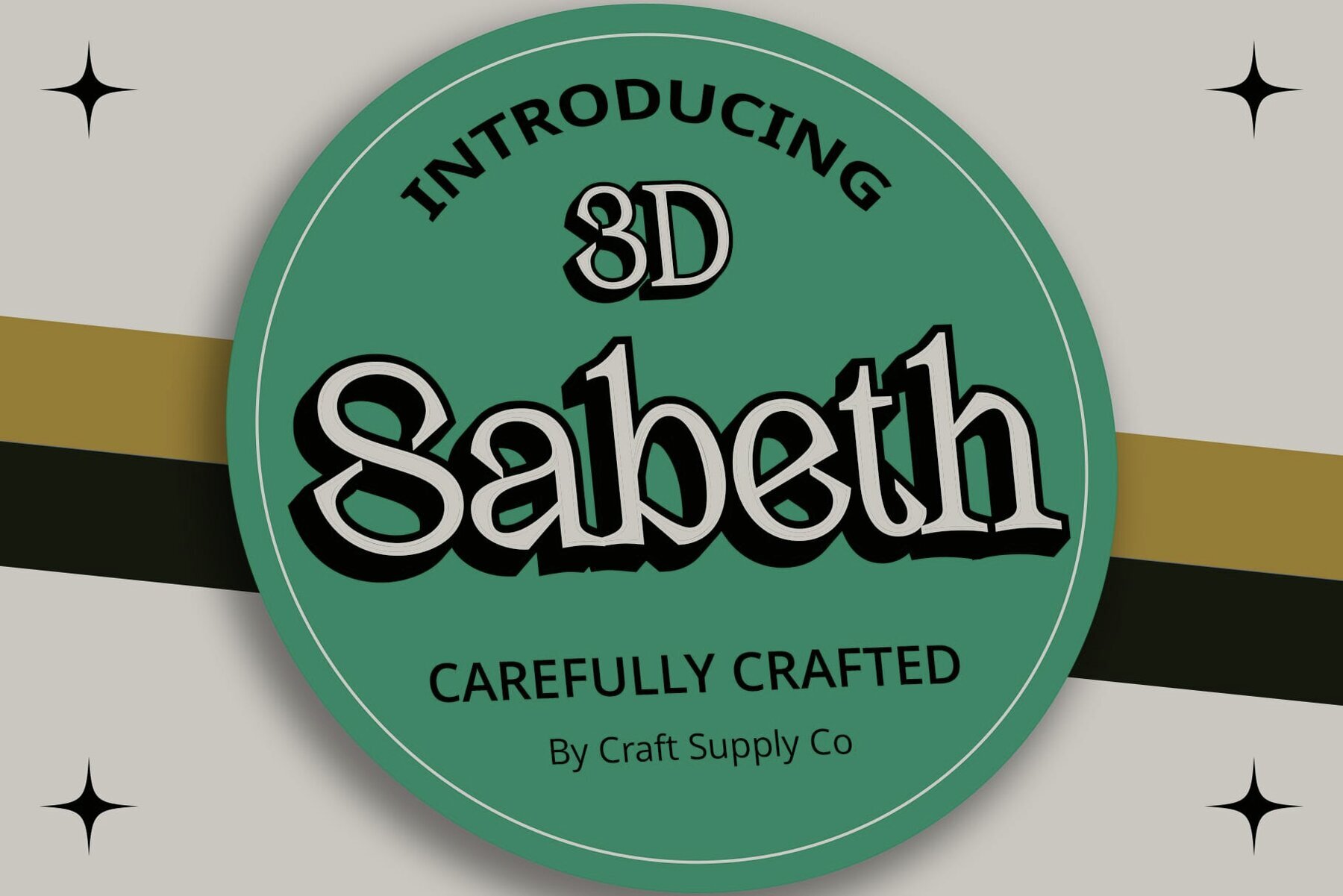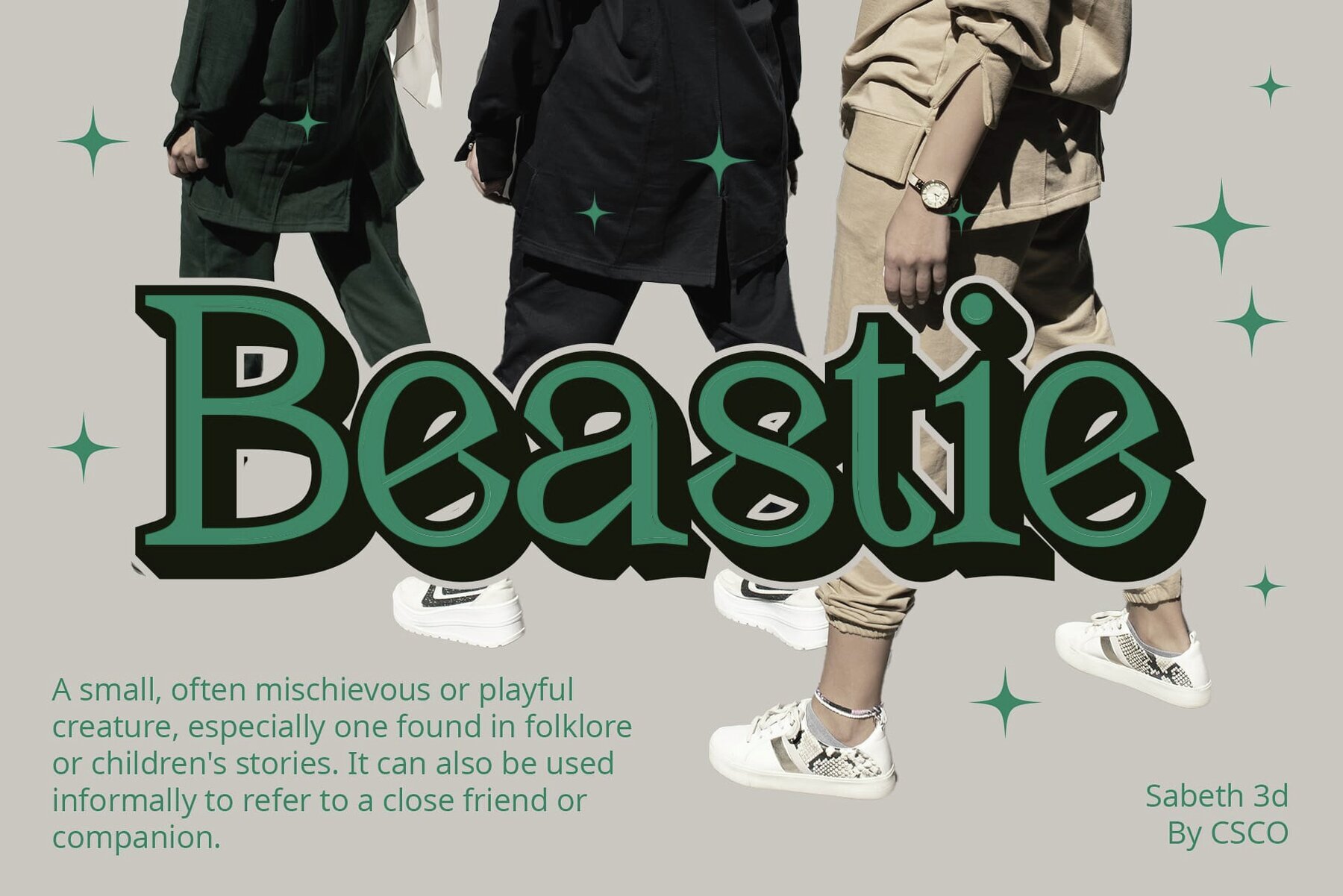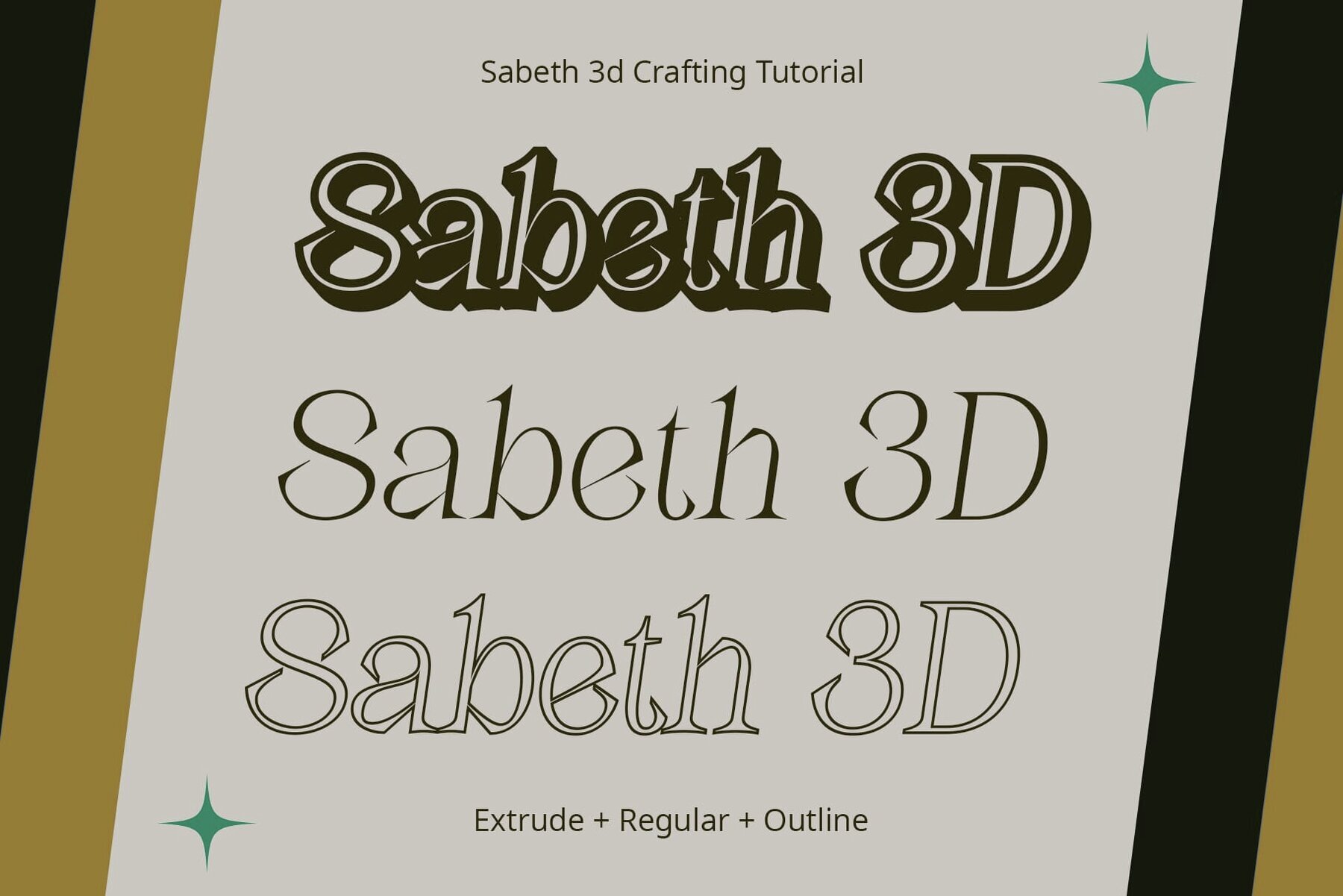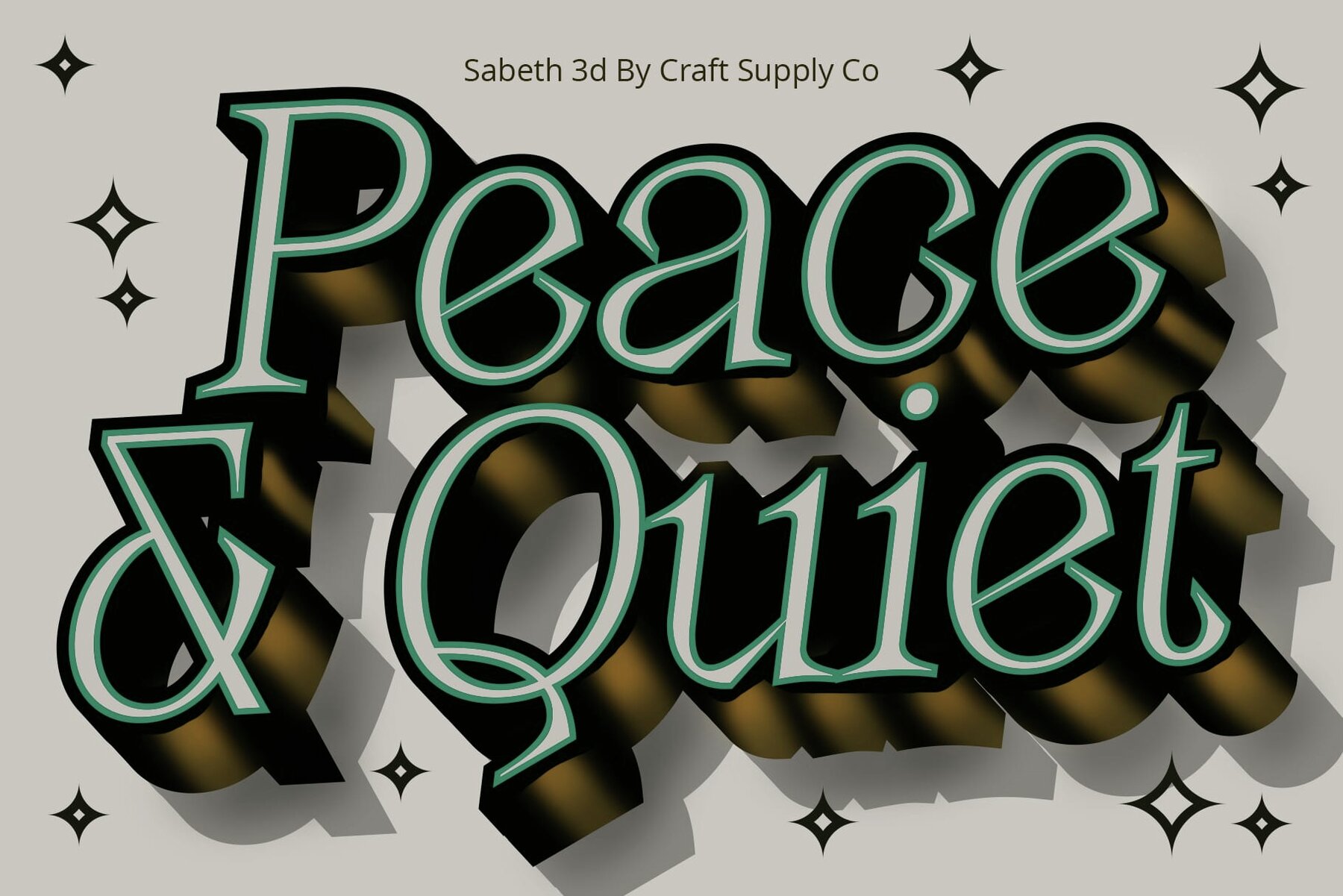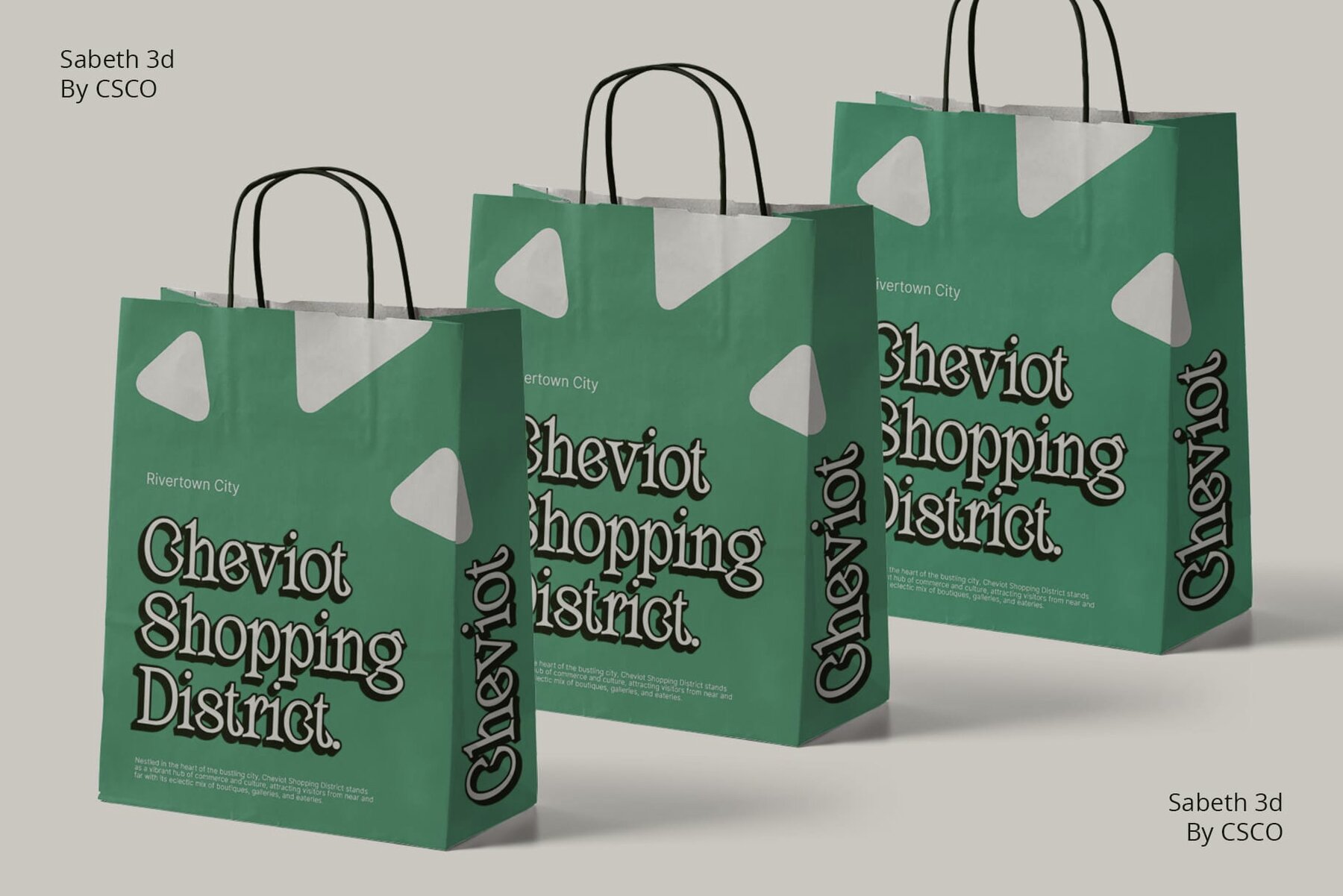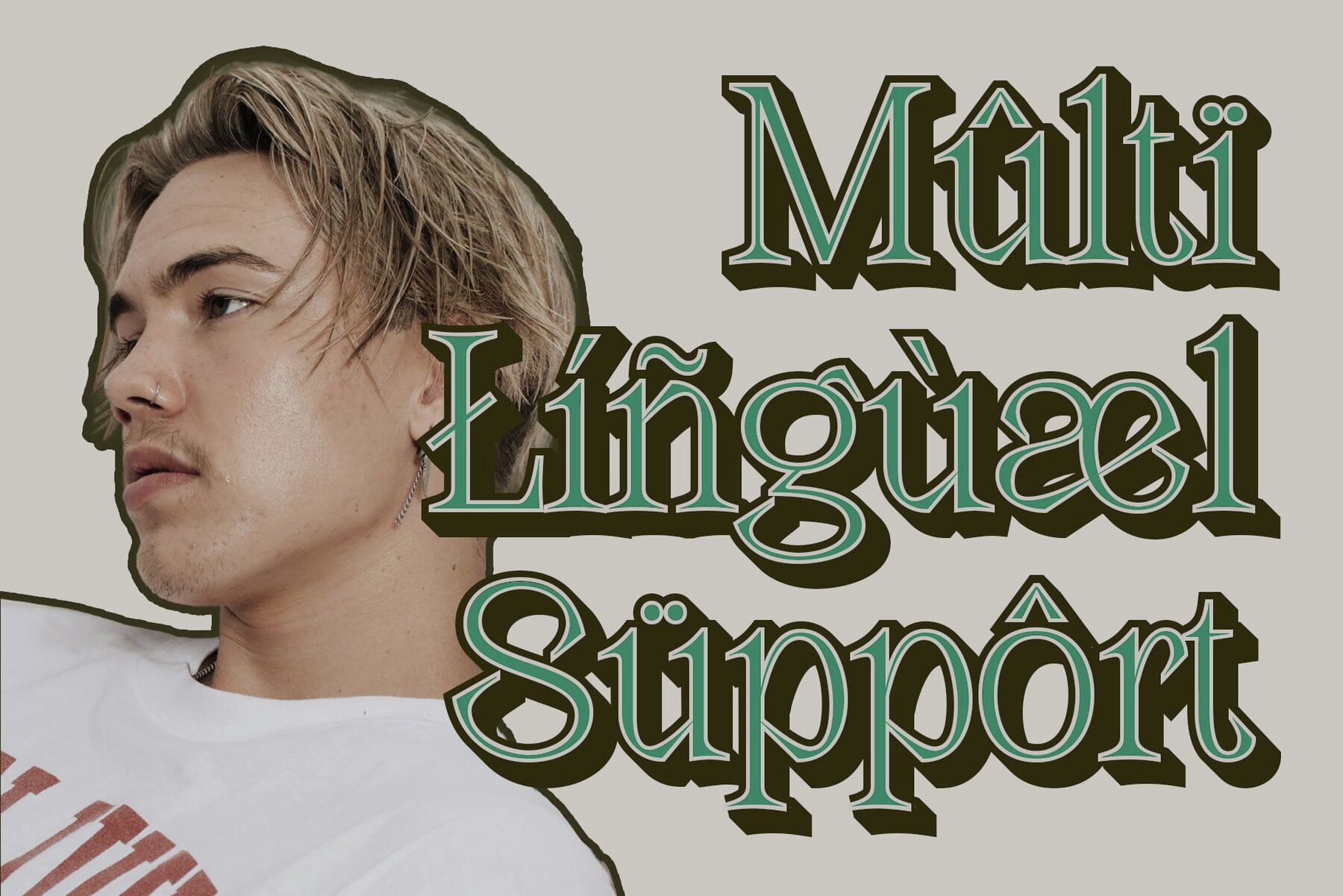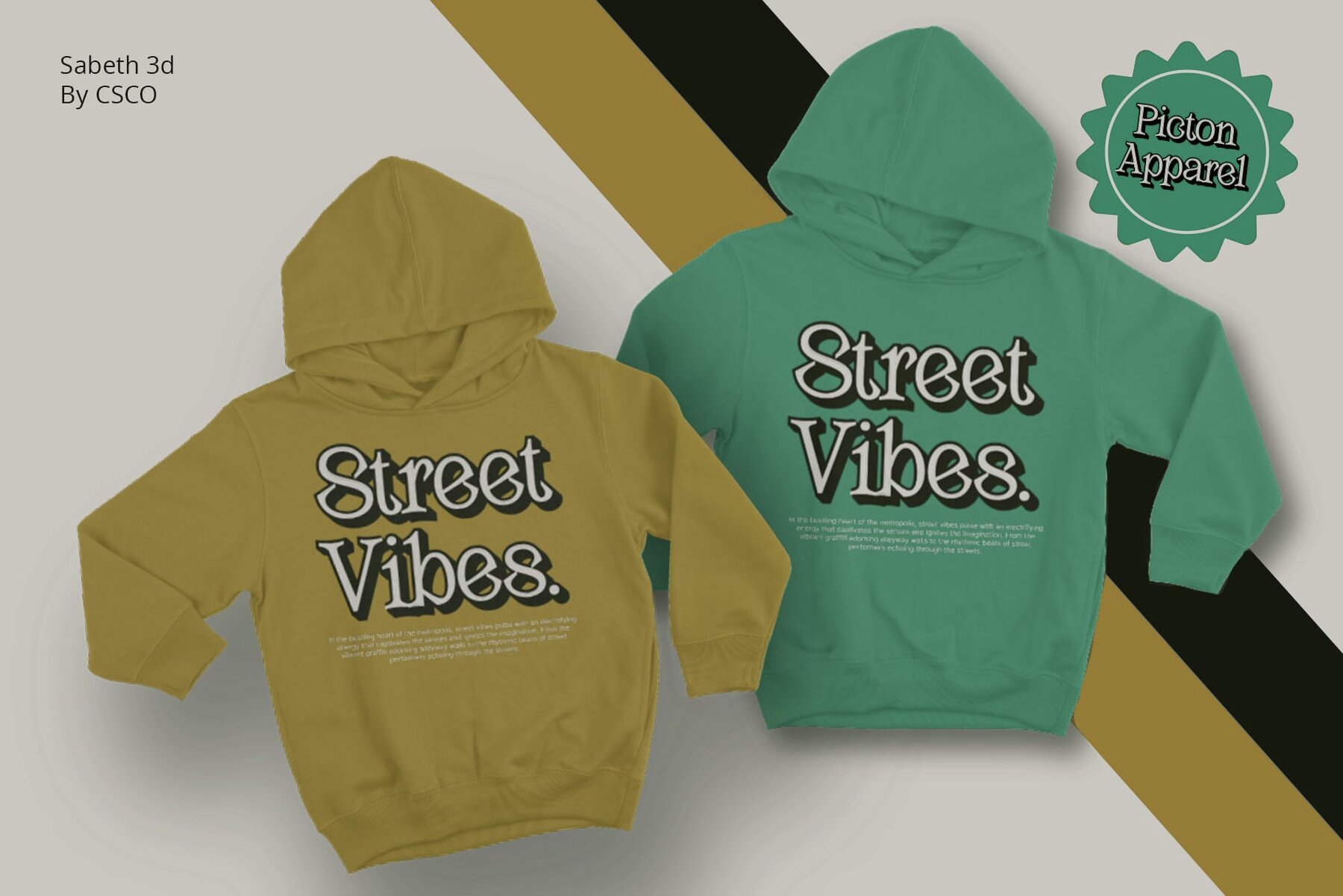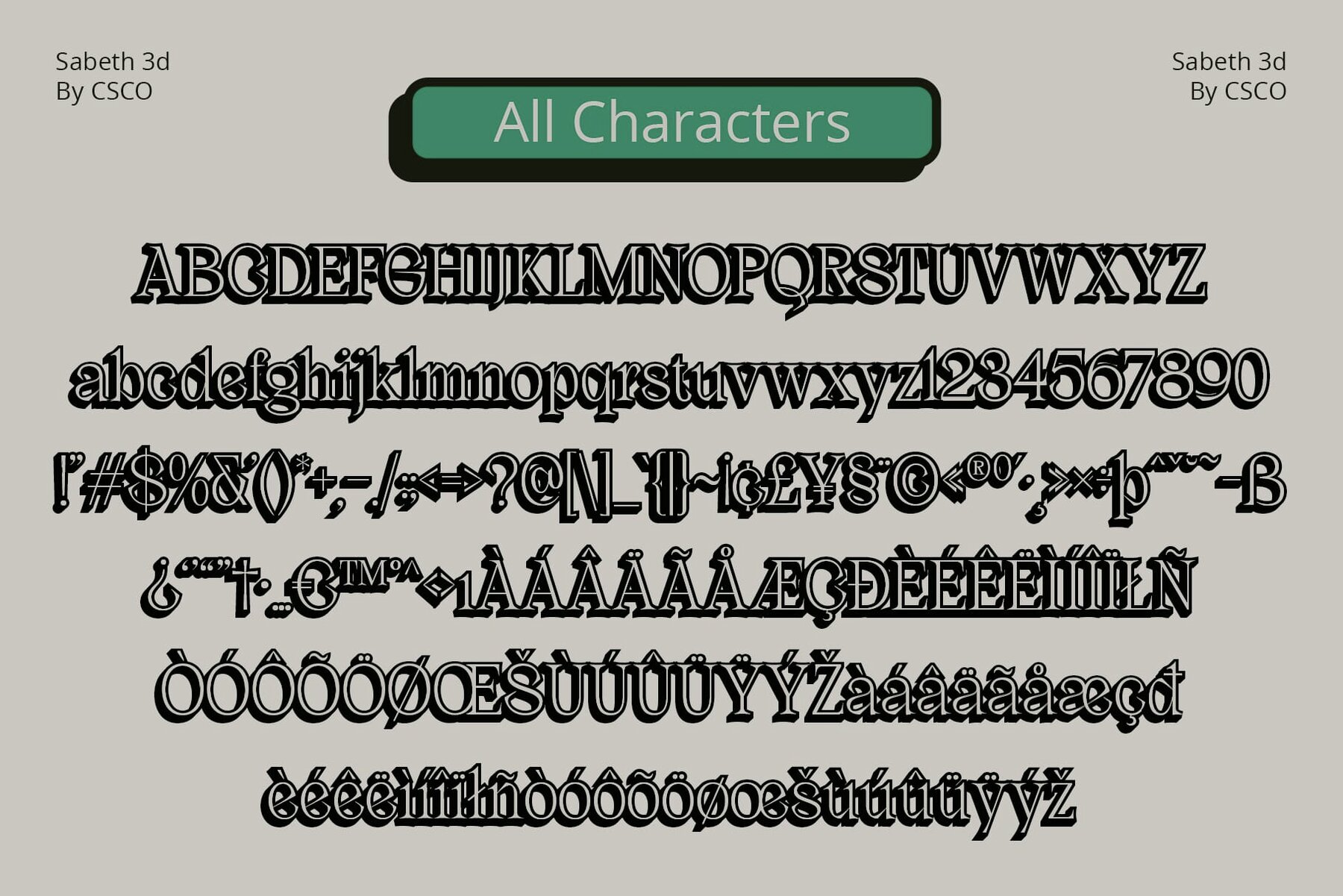
Sabeth 3D Font
This typeface exhibits a classic elegance with a contemporary twist, marked by its sharp serifs and high contrast between thick and thin strokes. Ideal for display purposes in formal applications, it possesses a refined quality and an artistic flair that commands attention, making it suitable for headlines, branding, and sophisticated editorial work.